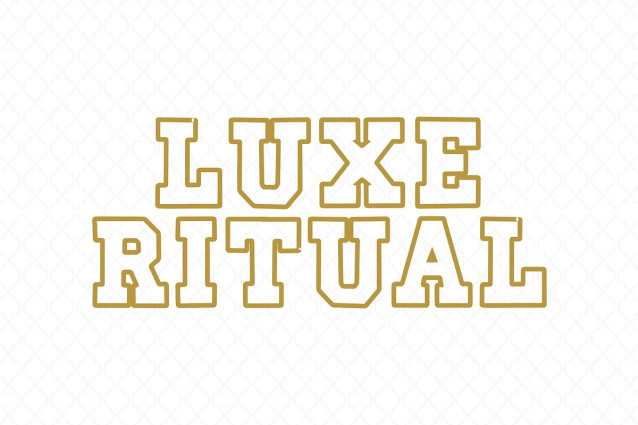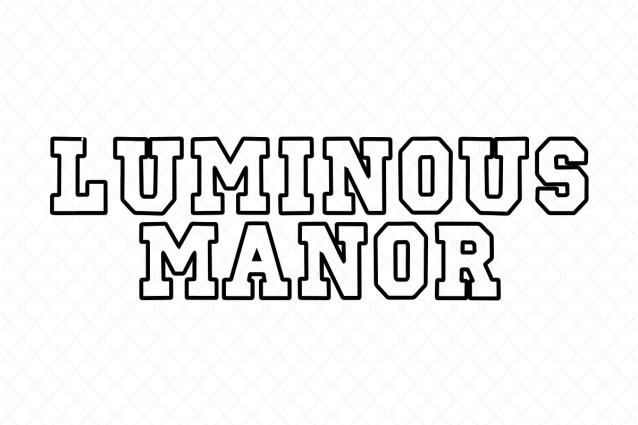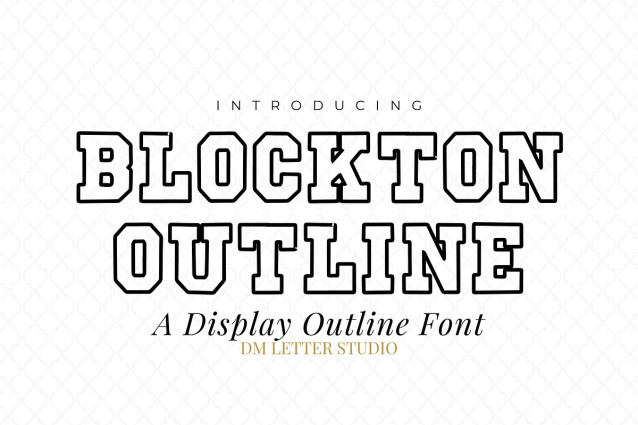
Blockton Outline Font
Blockton Outline Font is a bold block display font built with clean outline letterforms that give your designs a strong look without heavy fill. It keeps the solid structure of Blockton while adding an open, modern feel that’s perfect for layered and colorful designs. Because the outlines are balanced and consistent, the font stays readable at any size. Use it for logos, posters, packaging, apparel, signage, stickers, and modern branding. As a result, your designs feel bold, flexible, and visually striking.
Fast layouts with the Blockton Outline Font
Start with short, punchy words to let the outlines stand out. After that, add color fills or textures behind the letters for contrast. Because Blockton Outline has strong geometry, it works especially well in badges, stacked layouts, and boxed designs. In addition, it shines on posters, labels, apparel graphics, and modern signage. Finally, try color pairs like black & white, neon & dark backgrounds, pastel fills, or metallic accents to push the outline effect.